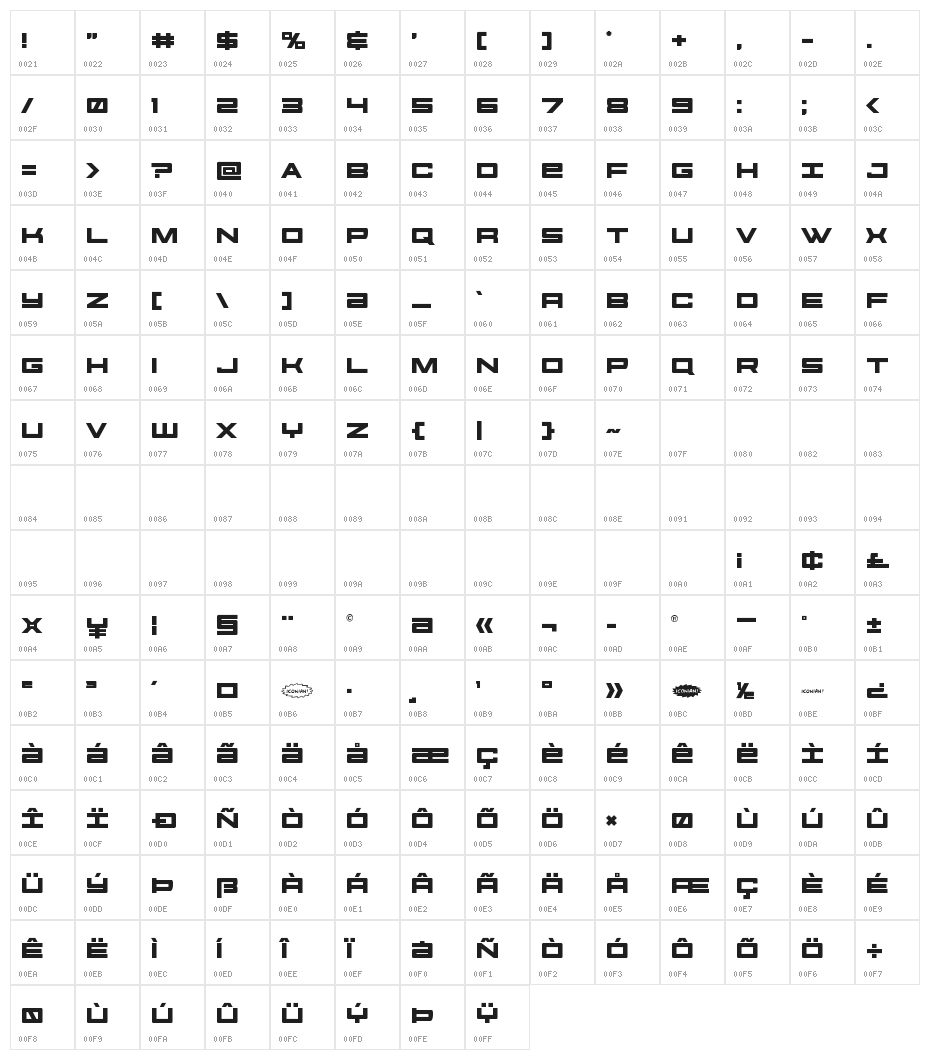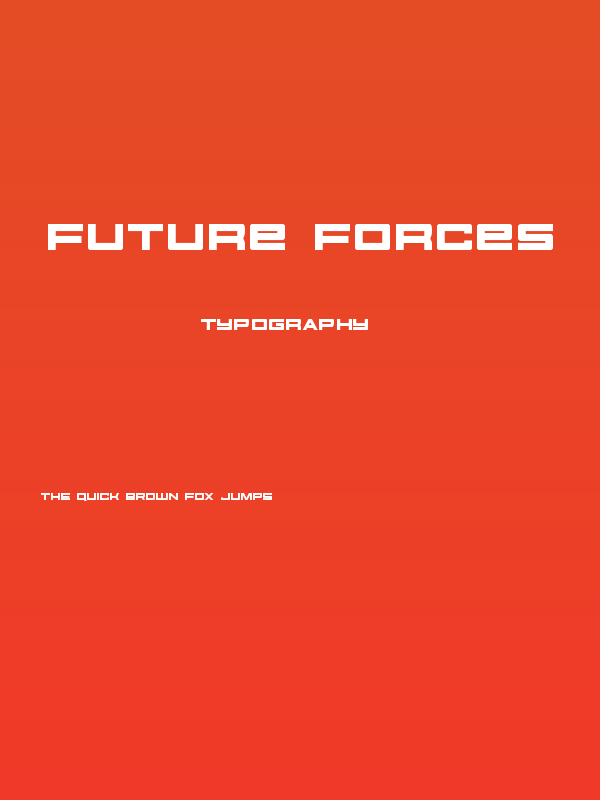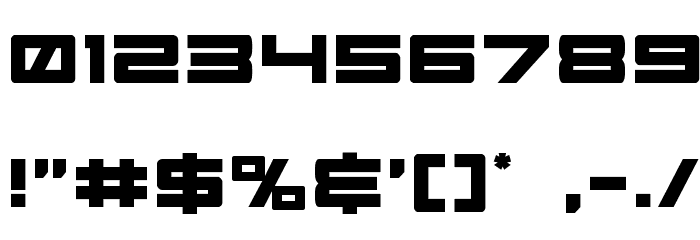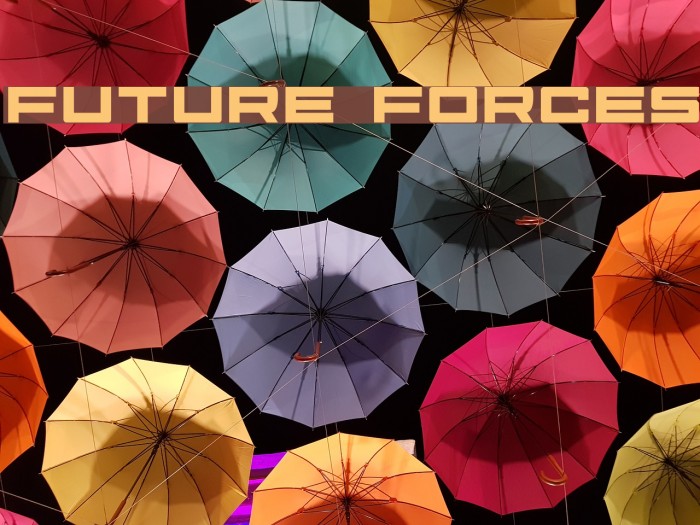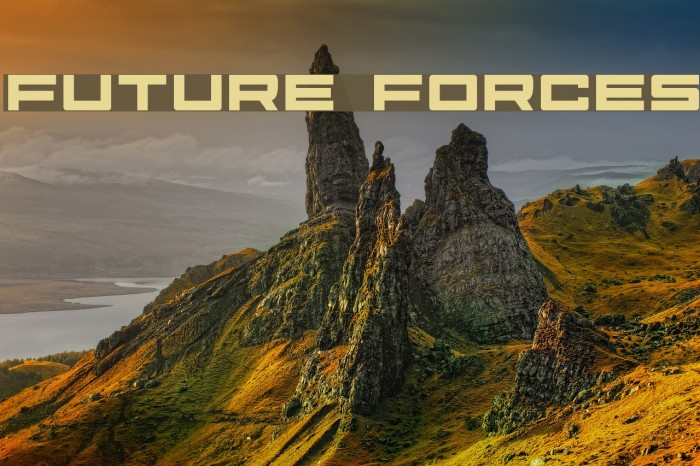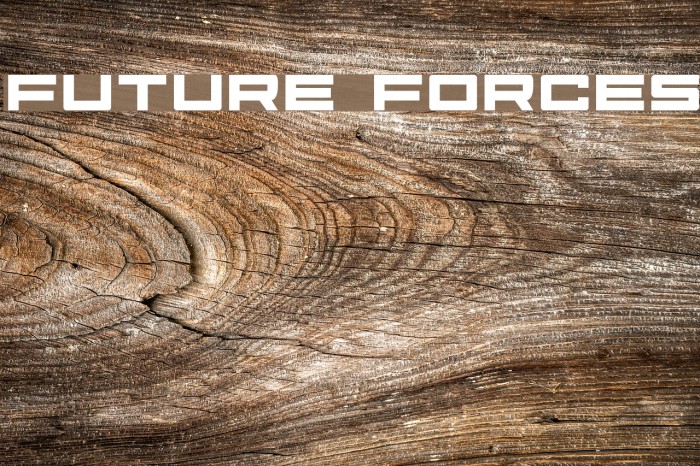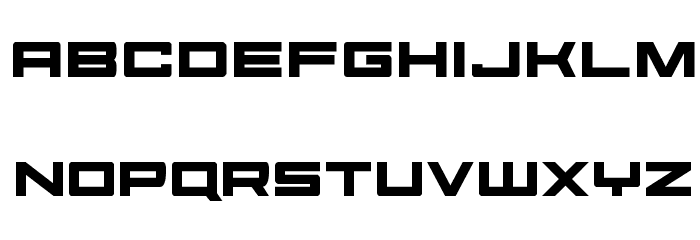
Future Forces Font
Future Forces Description
This font features a bold, futuristic design with a strong geometric structure. The characters are uniformly wide, with a blocky appearance that conveys a sense of strength and modernity. The uppercase letters are particularly striking, with sharp angles and clean lines that create a sense of precision. The lowercase letters maintain the same boldness, ensuring consistency across the typeface. Numbers and special characters are designed with the same attention to detail, making them easily legible. The overall style is distinctly modern, with a hint of technological influence, making it suitable for projects that require a contemporary and assertive look.
| Proposed Projects | Ideal for technology branding, sci-fi themed projects, video game interfaces, and modern advertising. |